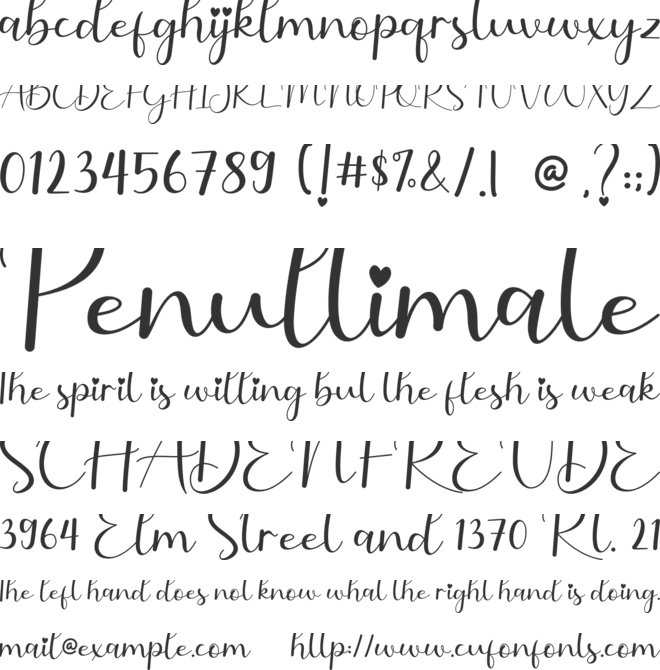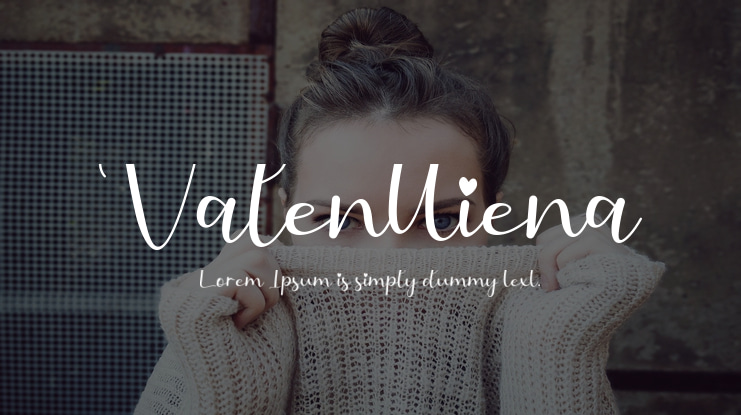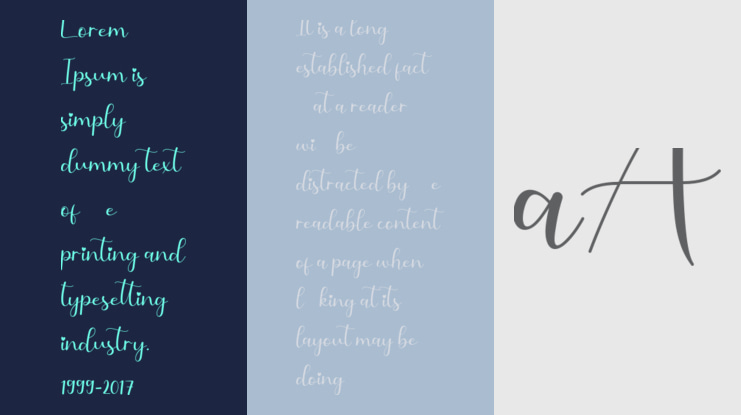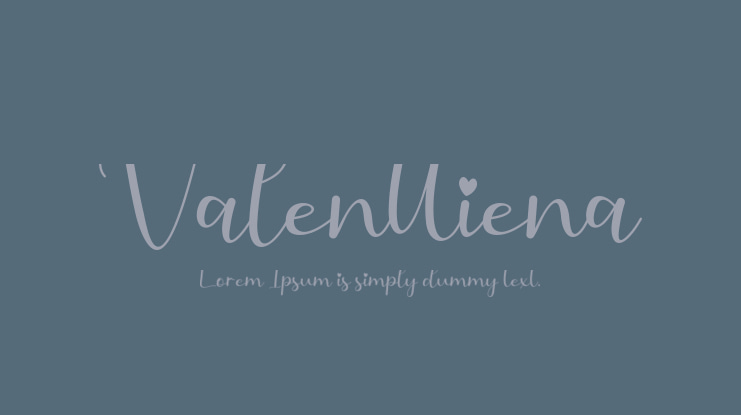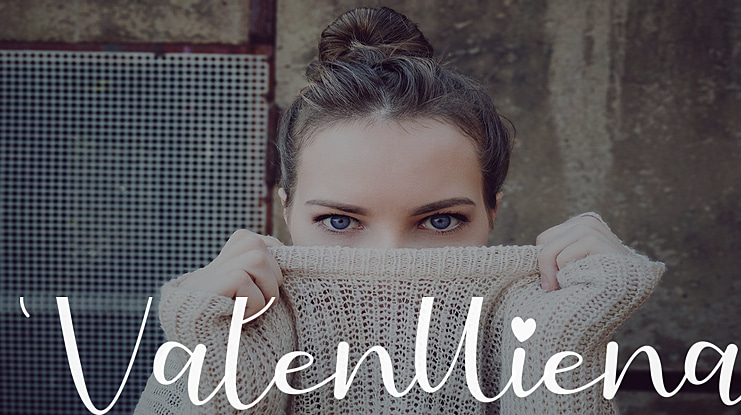
Valenttiena Font
Valenttiena is a romantic and elegant handwritten font. This font will be ideal for writing wedding invitations, cards, or any other design that may need a romantic, personalized touch! This font is PUA encoded which means you can access all of the glyphs and swashes with ease!